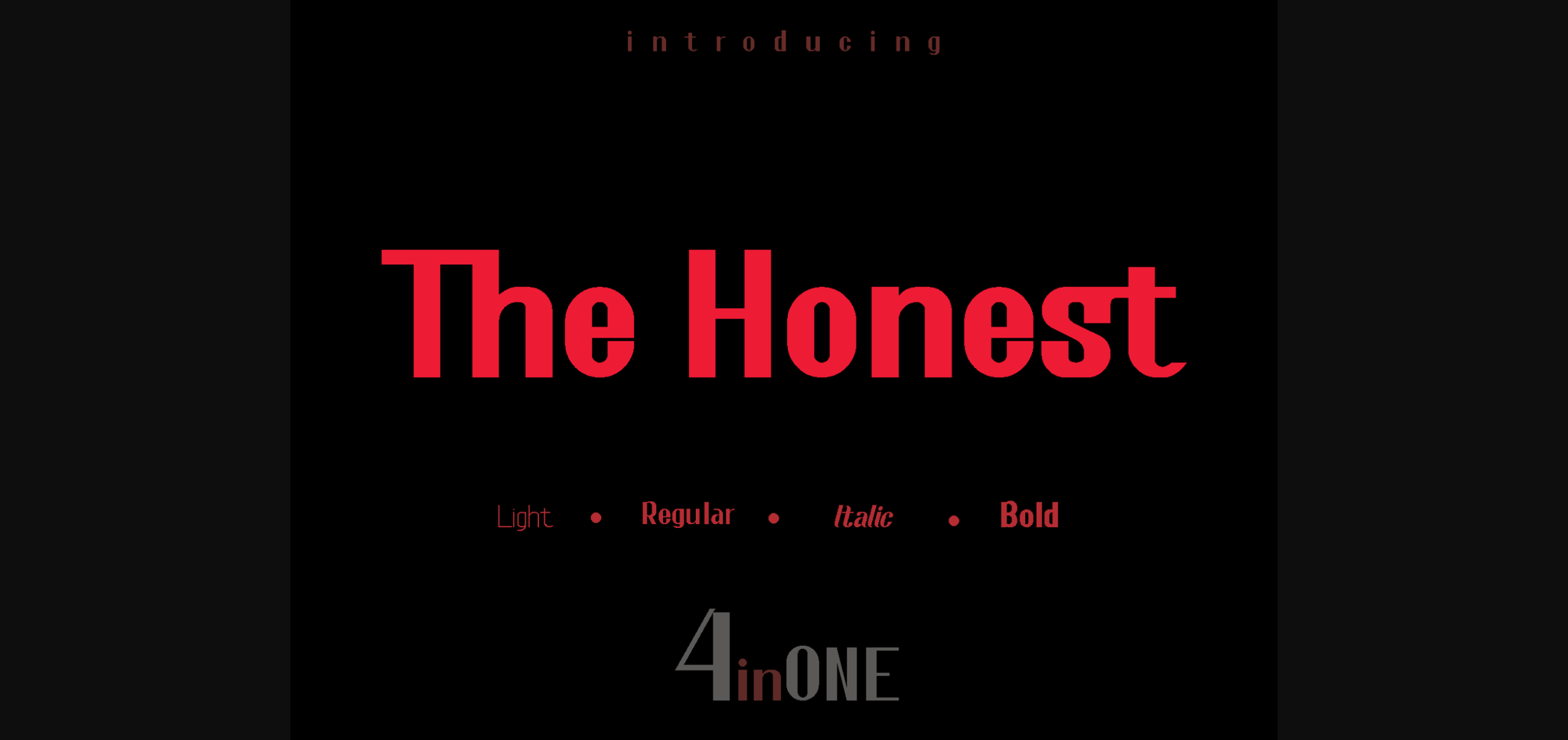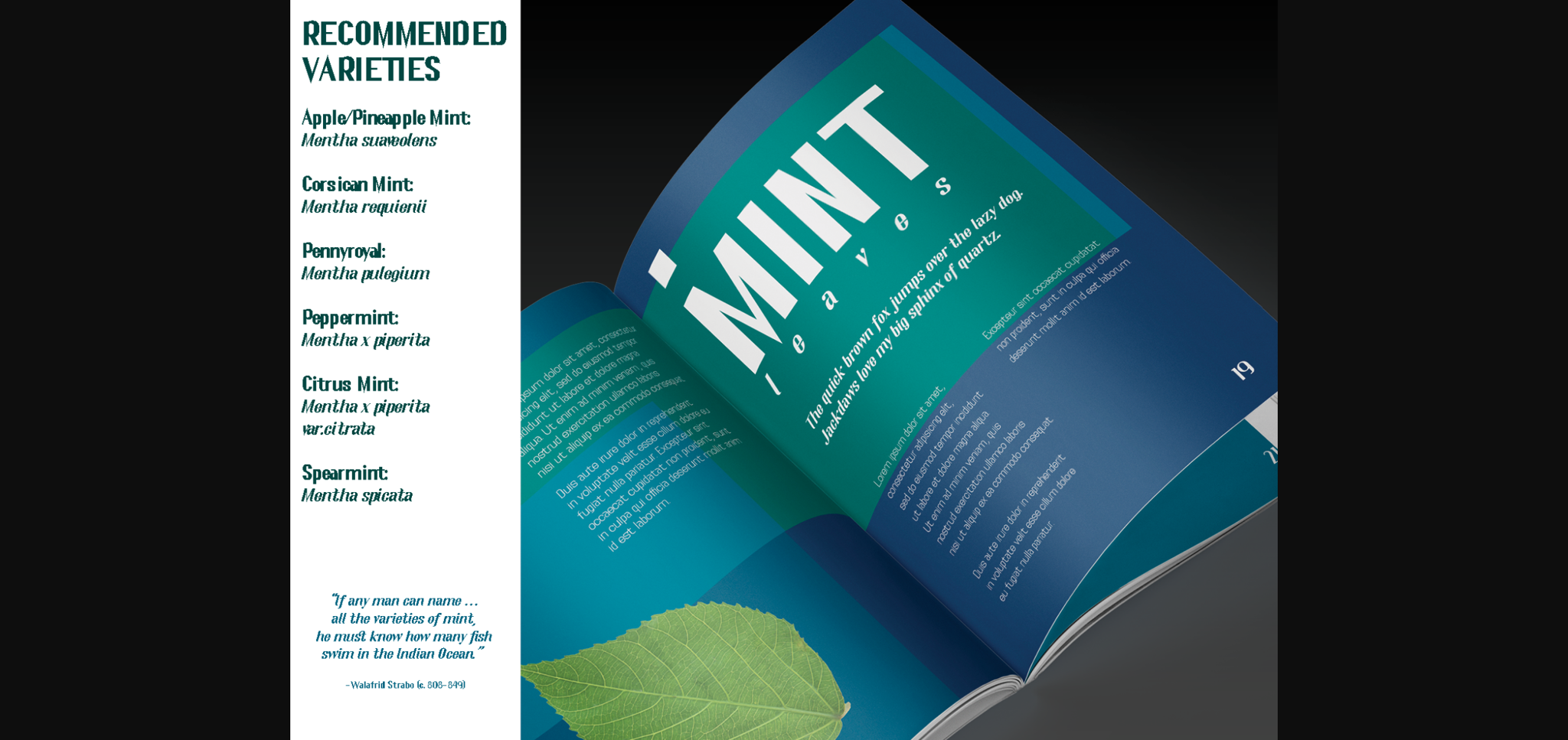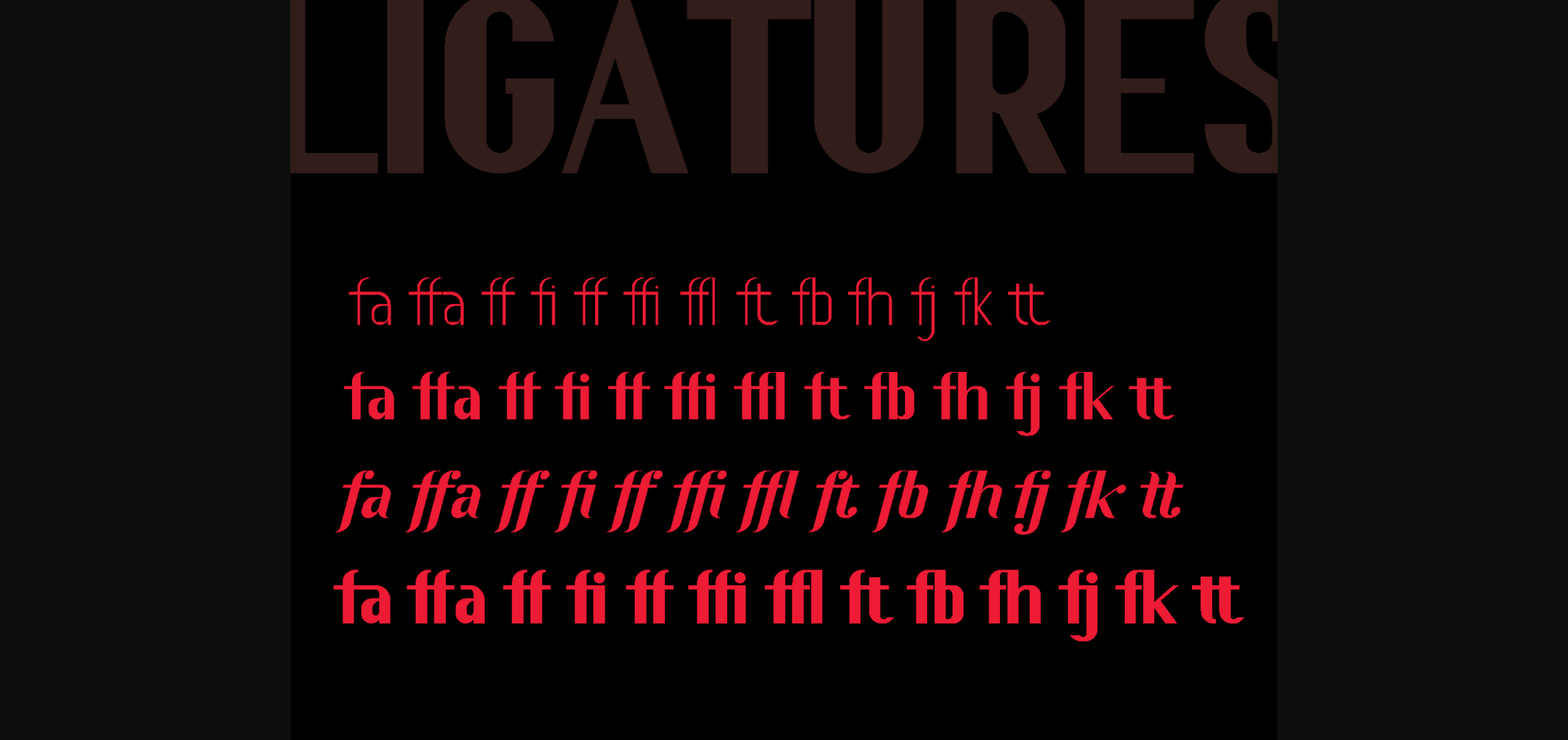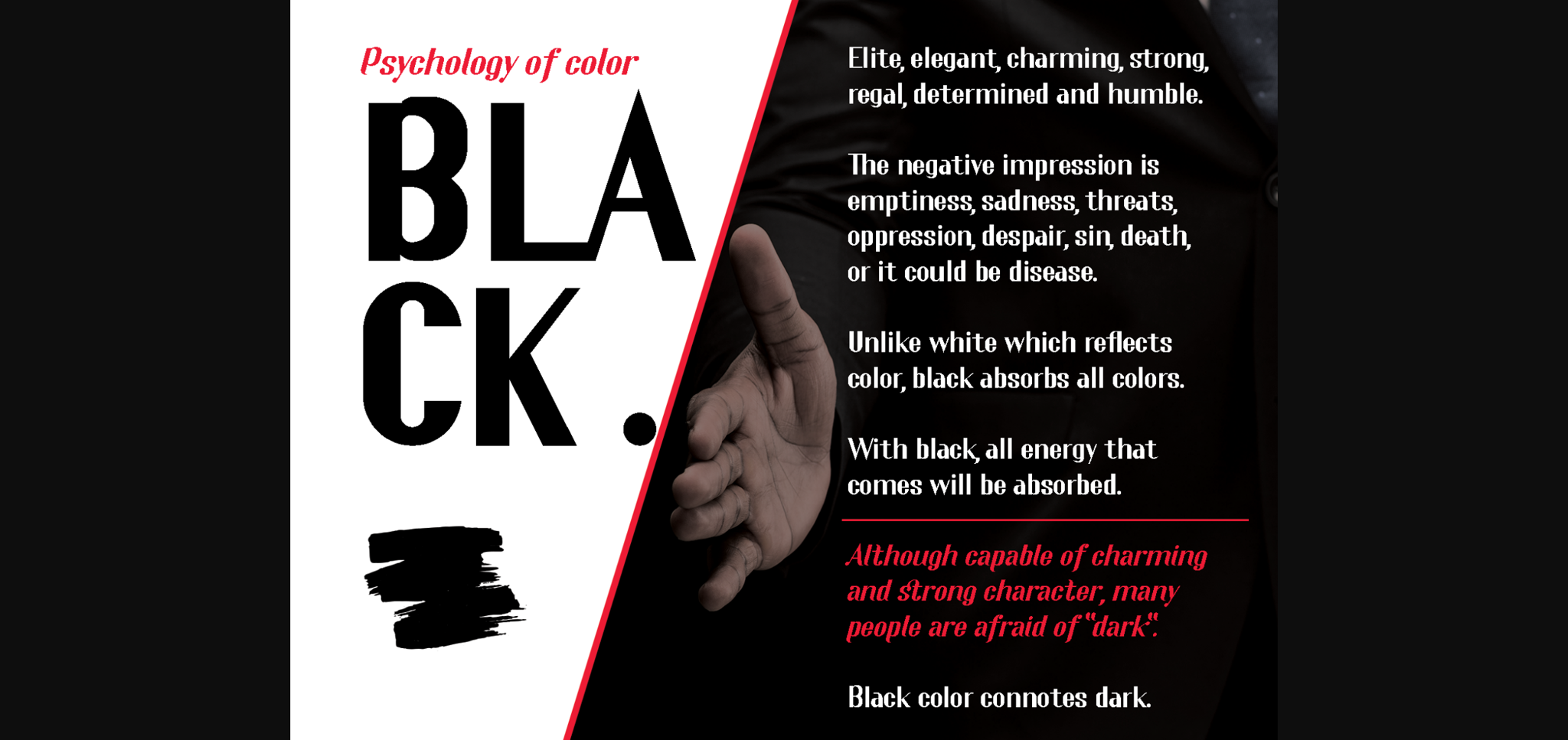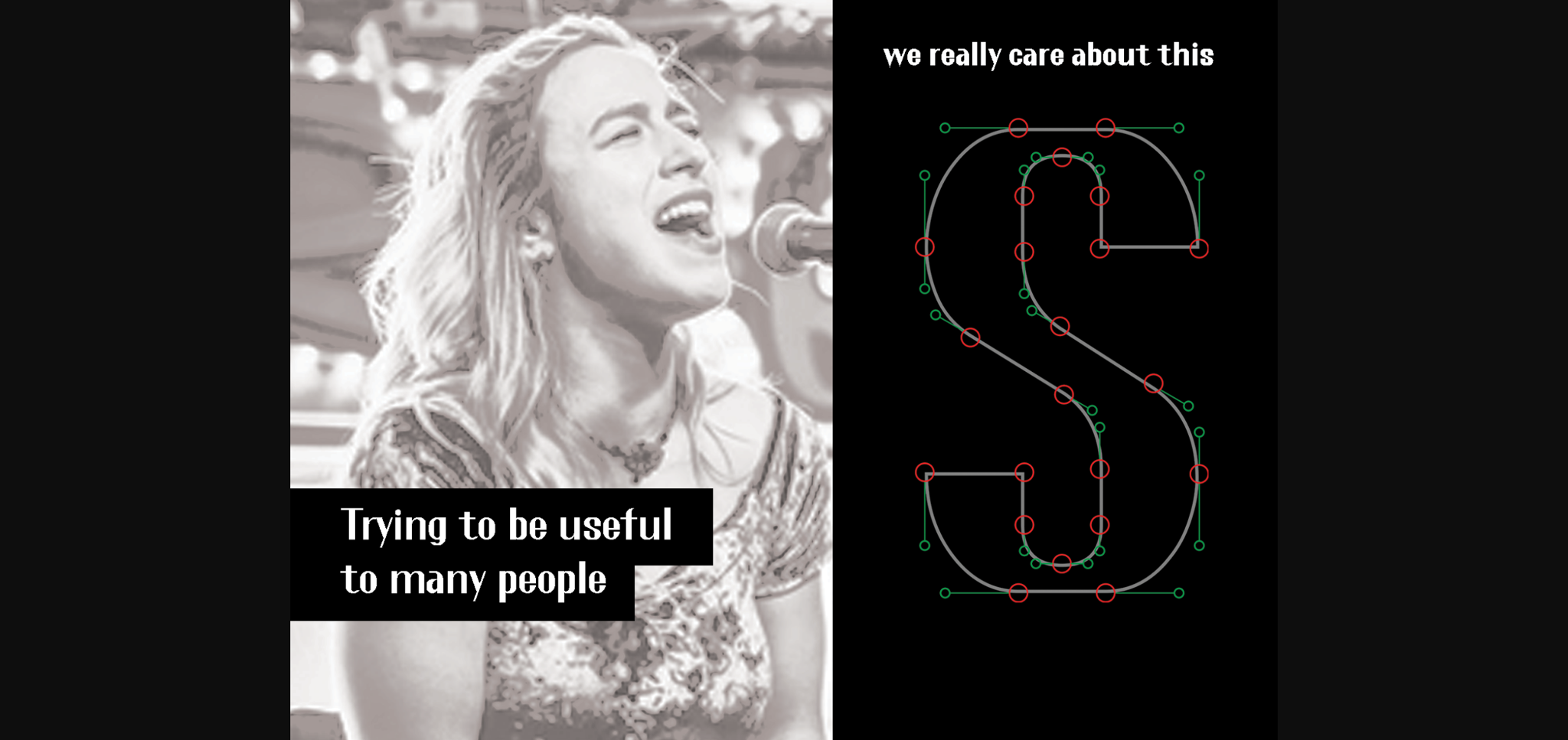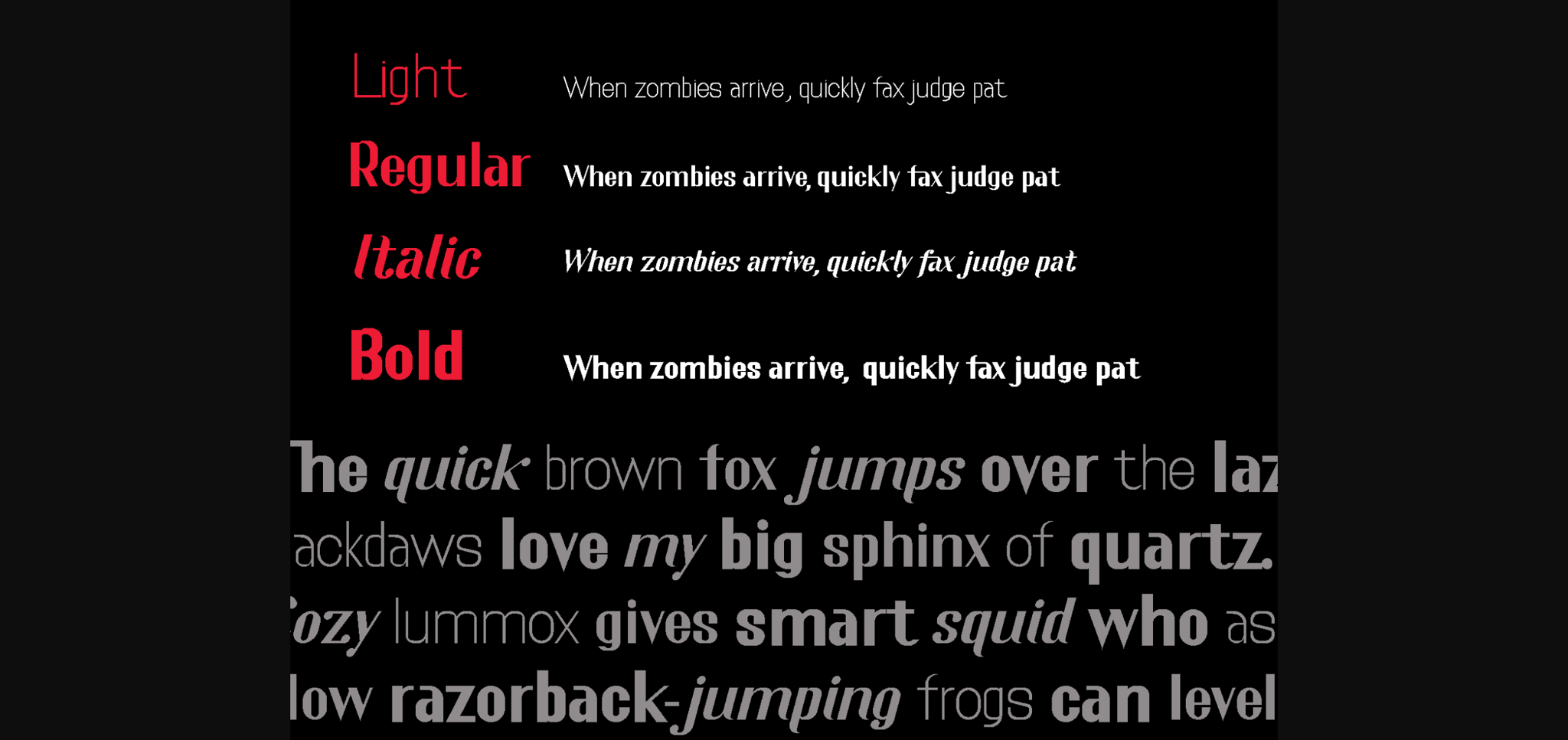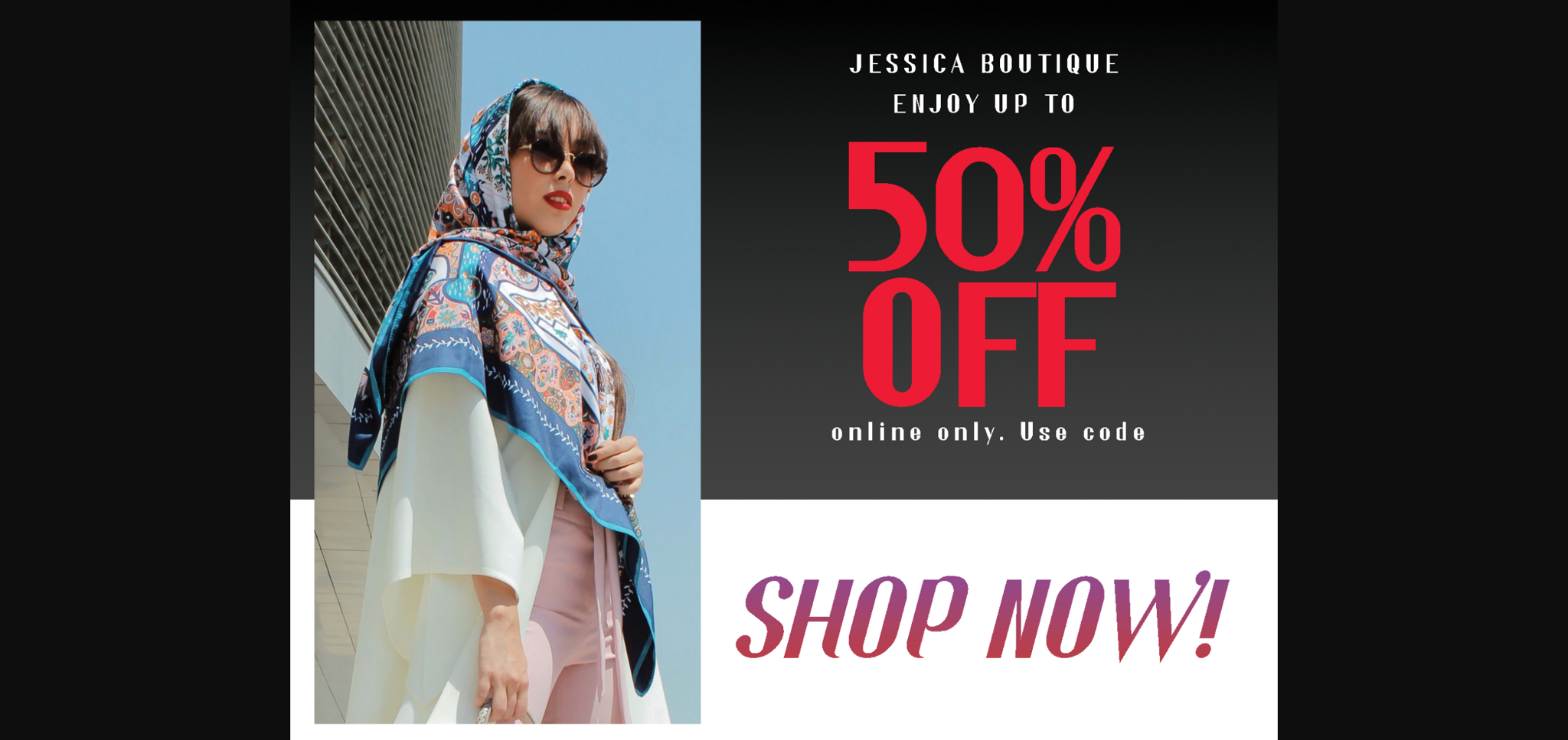
The Honest Font
About The Honest Font
The Honest is a cool, modern and bold sans serif font. Expertly designed to make your creation look out of this world, this font will look gorgeous on a variety of ideas.